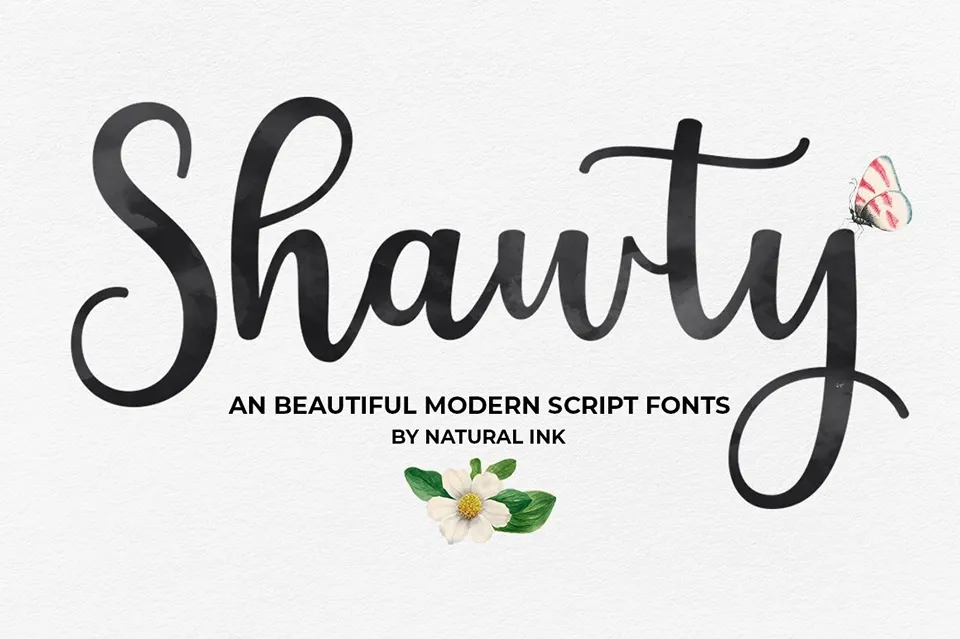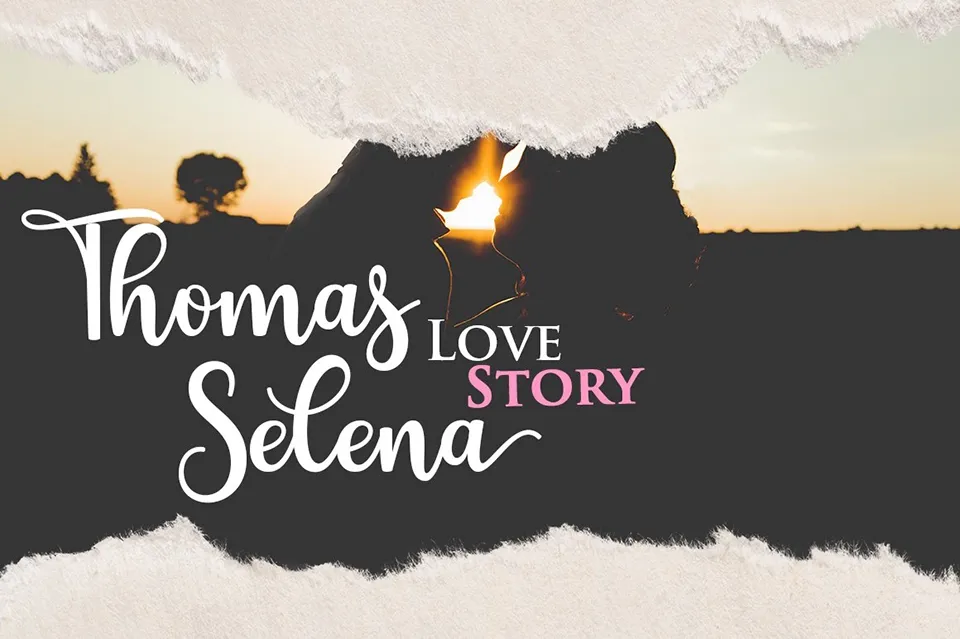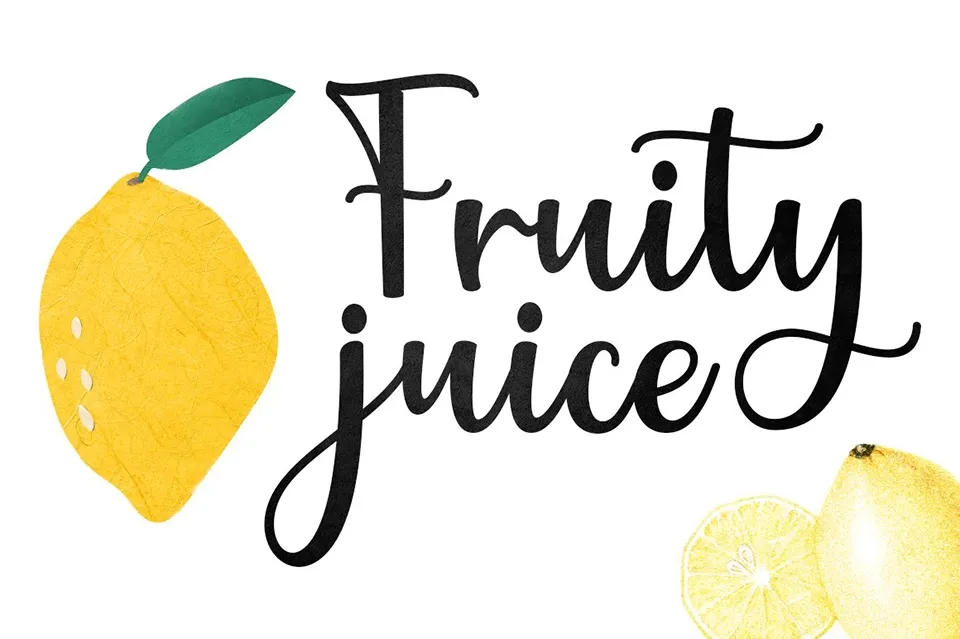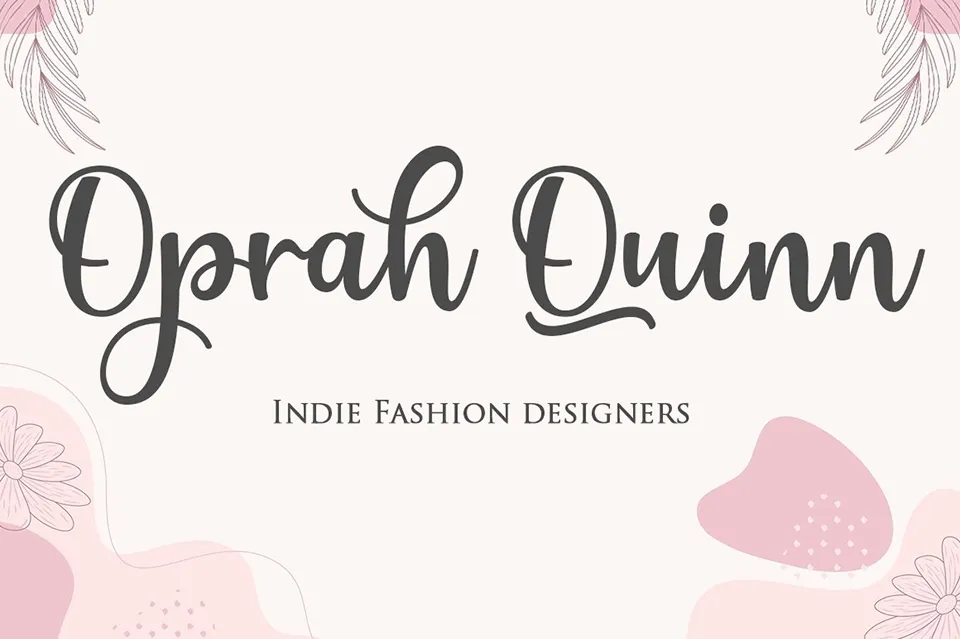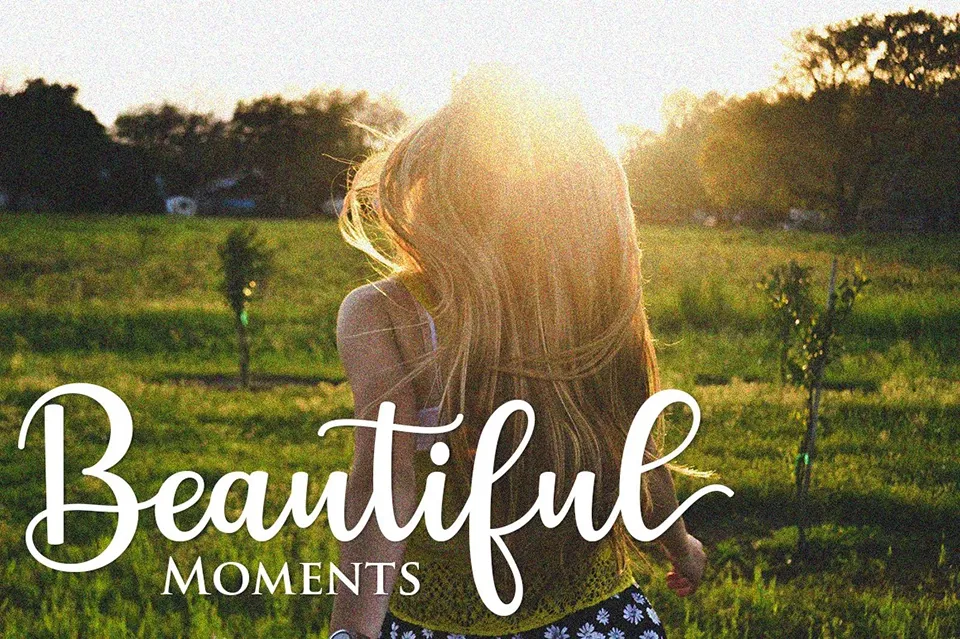
Shawty Font
Shawty Font, created by Natural Ink, is described as a beautiful modern script typeface. It features smooth, flowing letterforms that connect seamlessly, mimicking elegant handwriting. The strokes have a subtle variation in thickness, suggesting a hand-painted or brush-like quality, which adds a dynamic and organic feel. Characterized by graceful curves and large, looping elements, particularly in the capital ‘S’ and descending ‘y’, Shawty exudes a chic and contemporary charm. This font is ideal for branding, logos, invitations, social media graphics, and headlines requiring a stylish, personal, and fluid aesthetic.